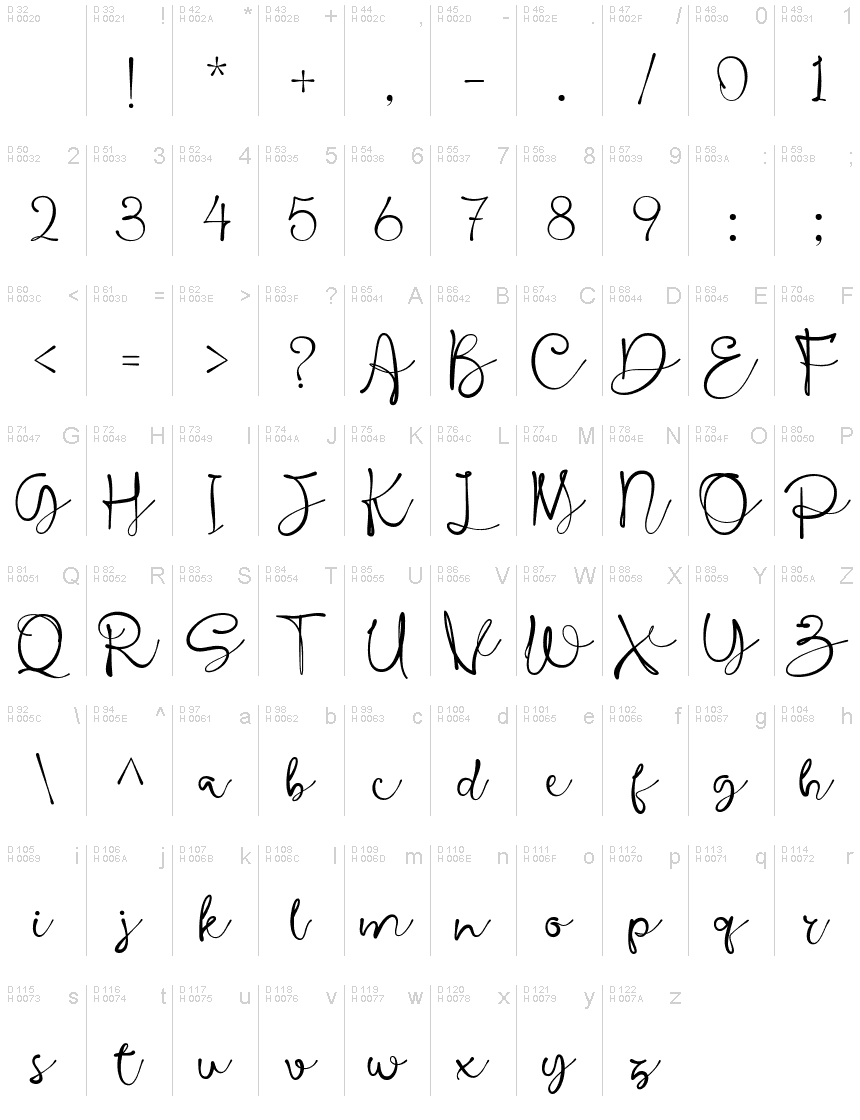
Barona Script Regular
Barona Script, designed by Afkari Studio, is a semi-light handwritten font that radiates timeless elegance. Its graceful brush strokes capture the essence of contemporary calligraphy, striking a perfect balance between sophistication and playfulness.
With an abundance of alternative glyphs and ligatures, Barona Script unlocks limitless creative potential. This versatile font is ideal for crafting quotes, logos, social media content, websites, blogs, and invitation cards. Whether you're aiming to enhance your branding or create captivating digital designs, Barona Script will be your trusted artistic companion throughout the creative process.